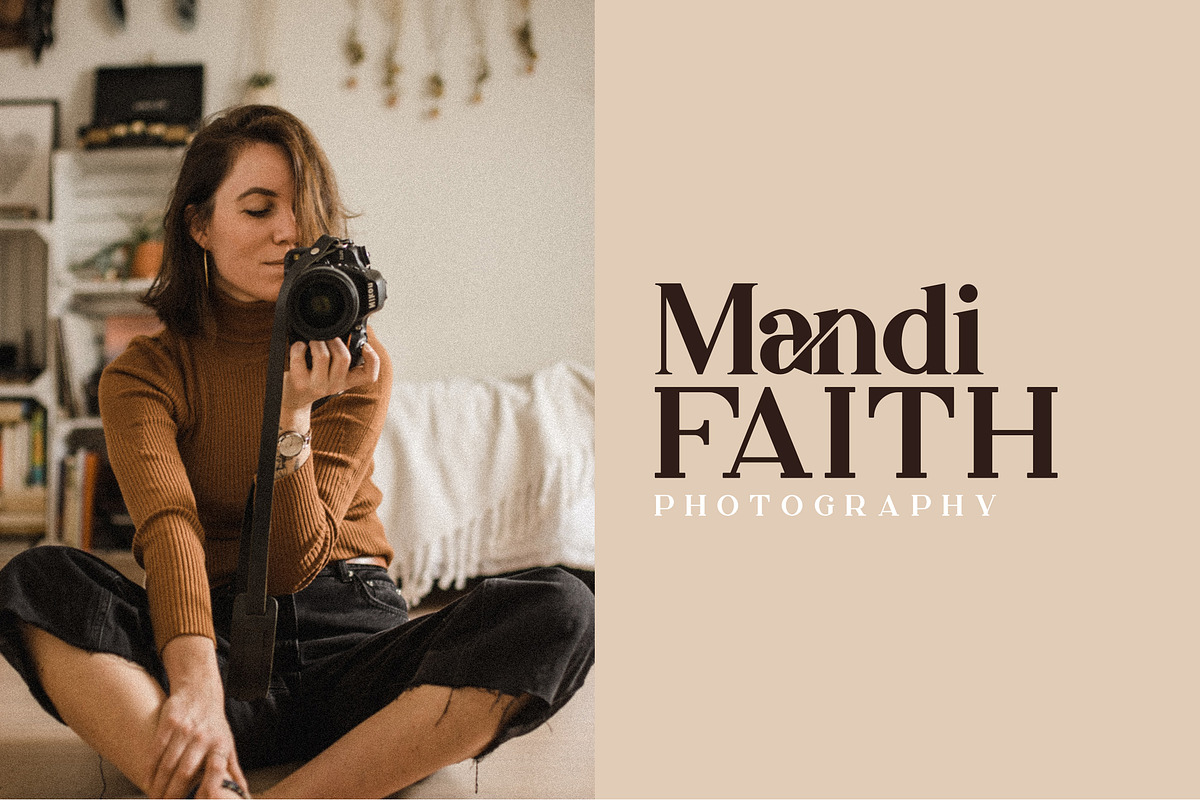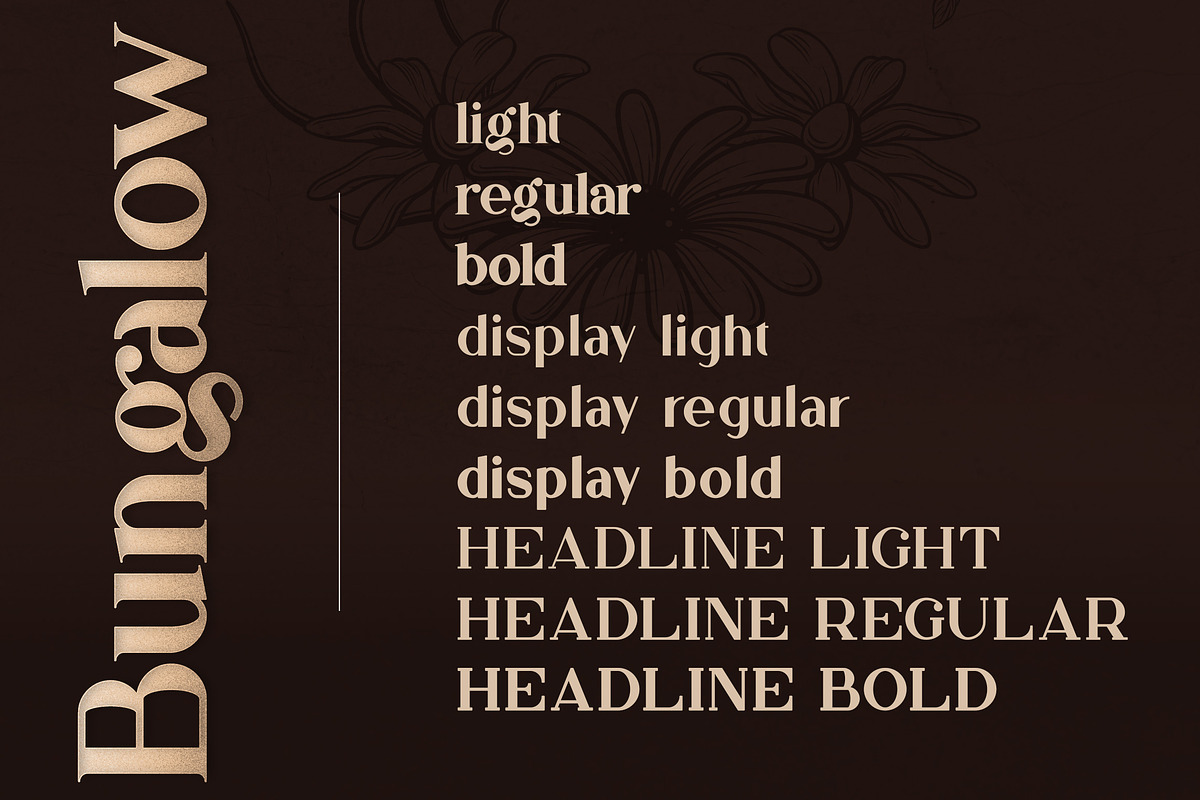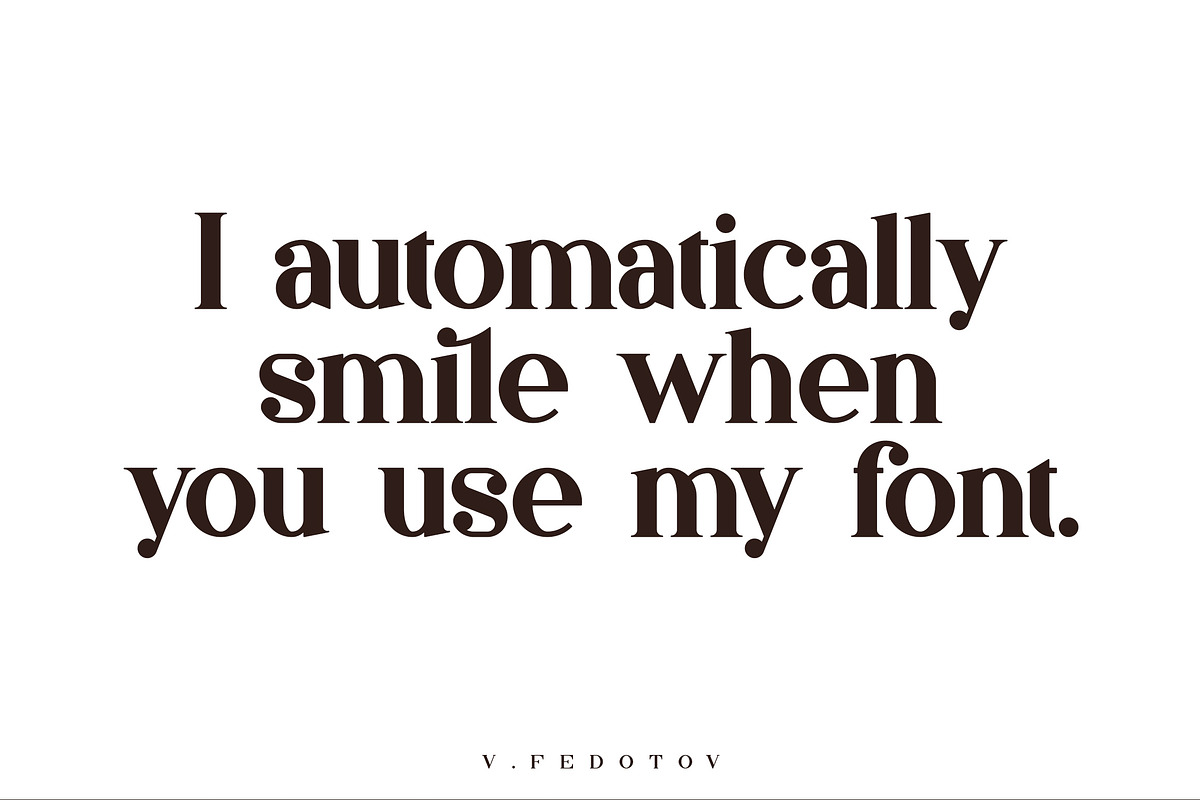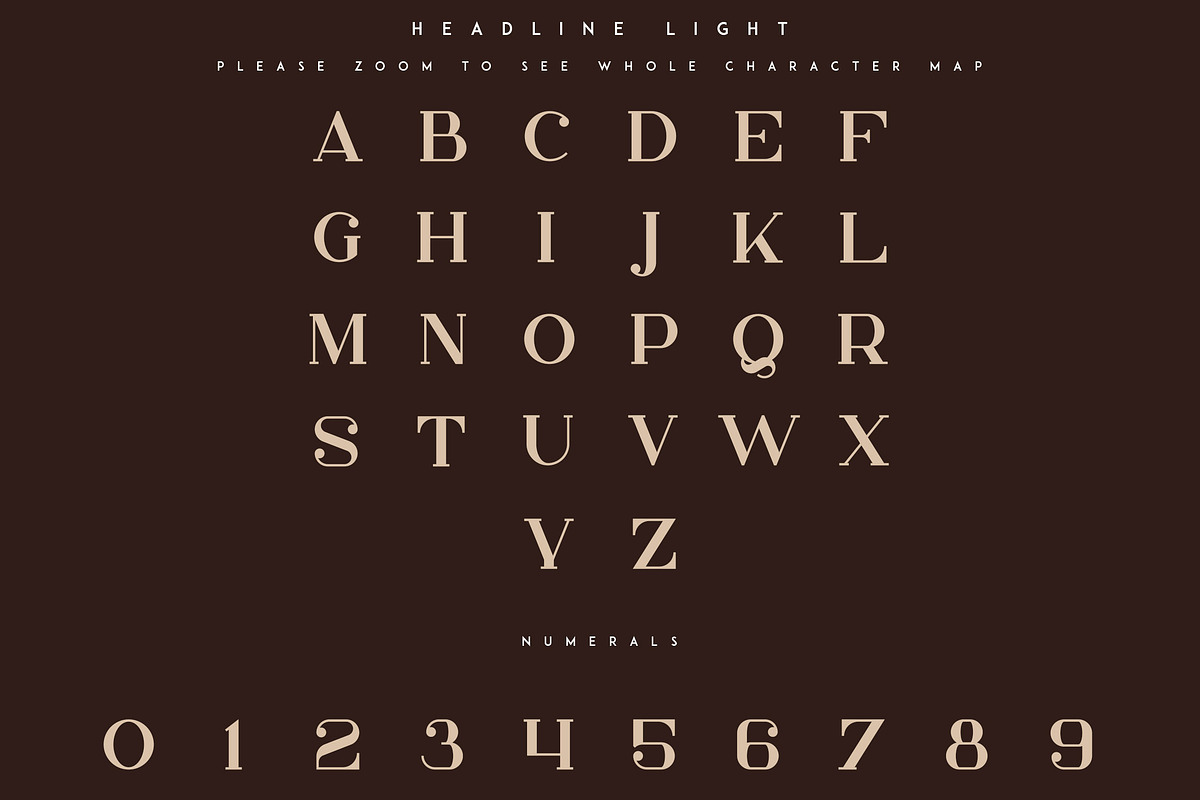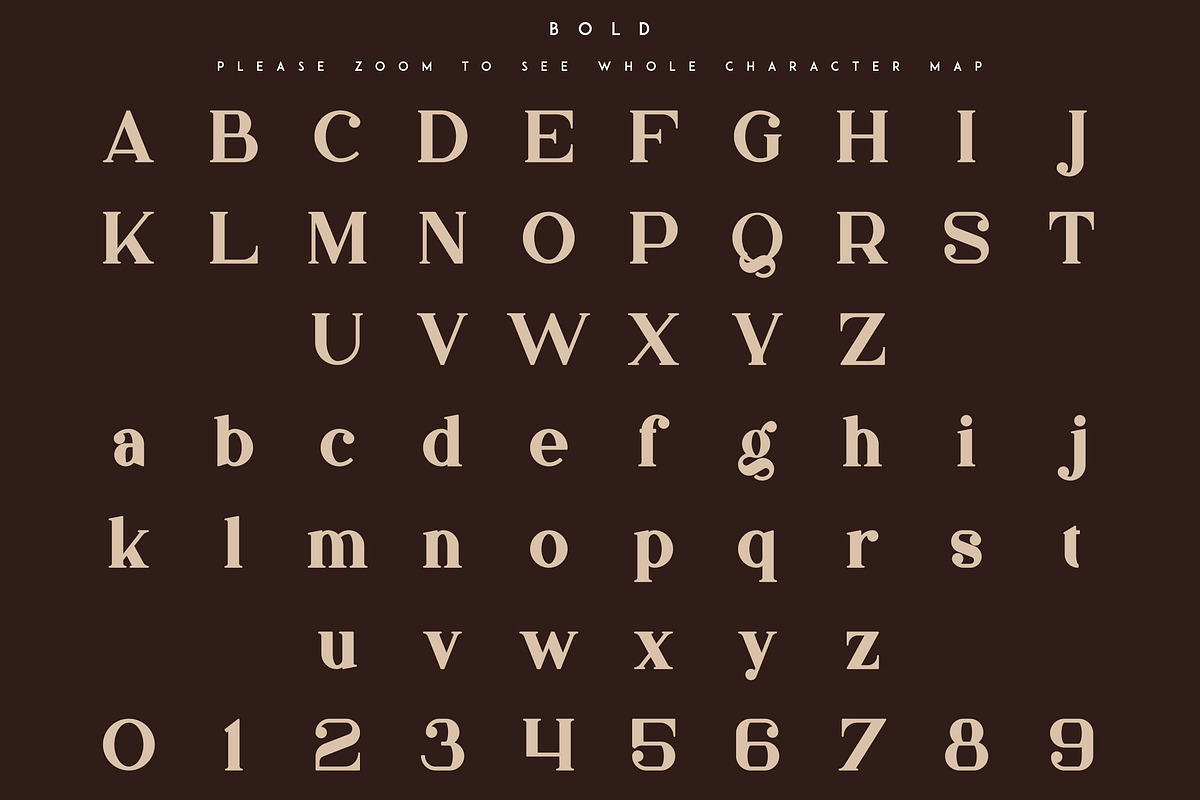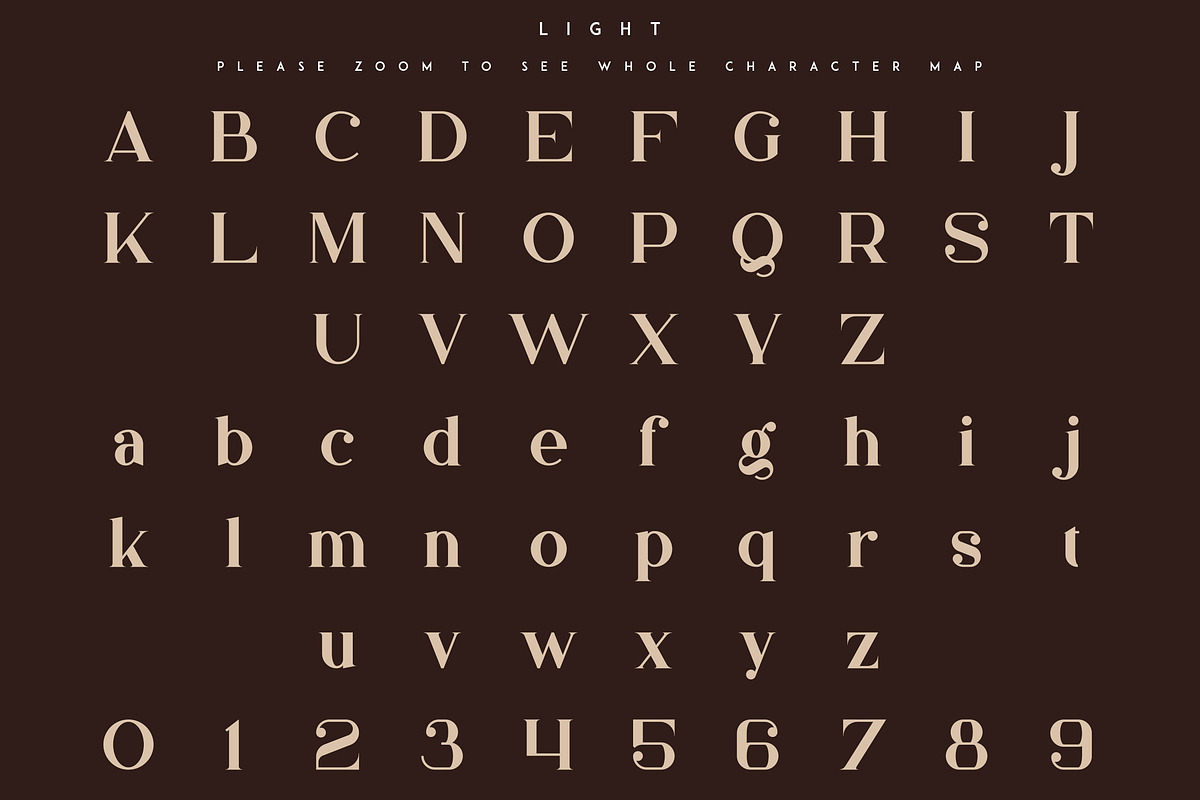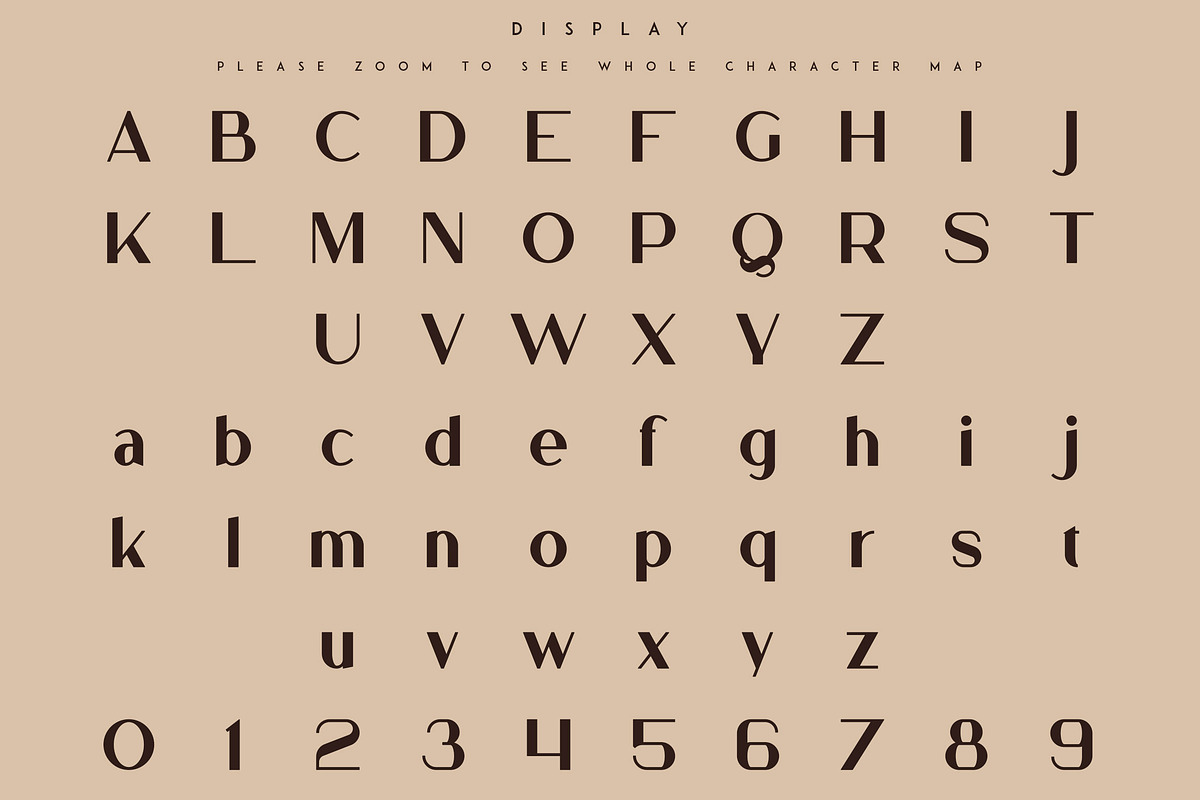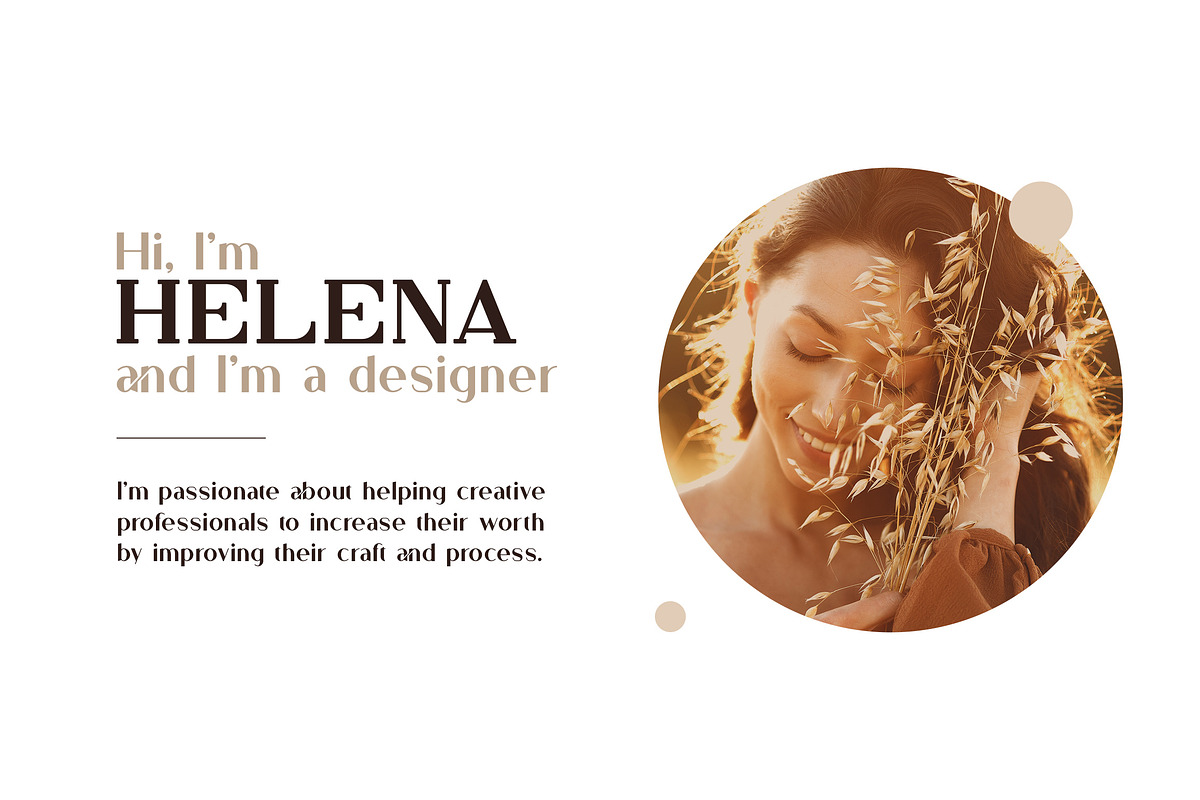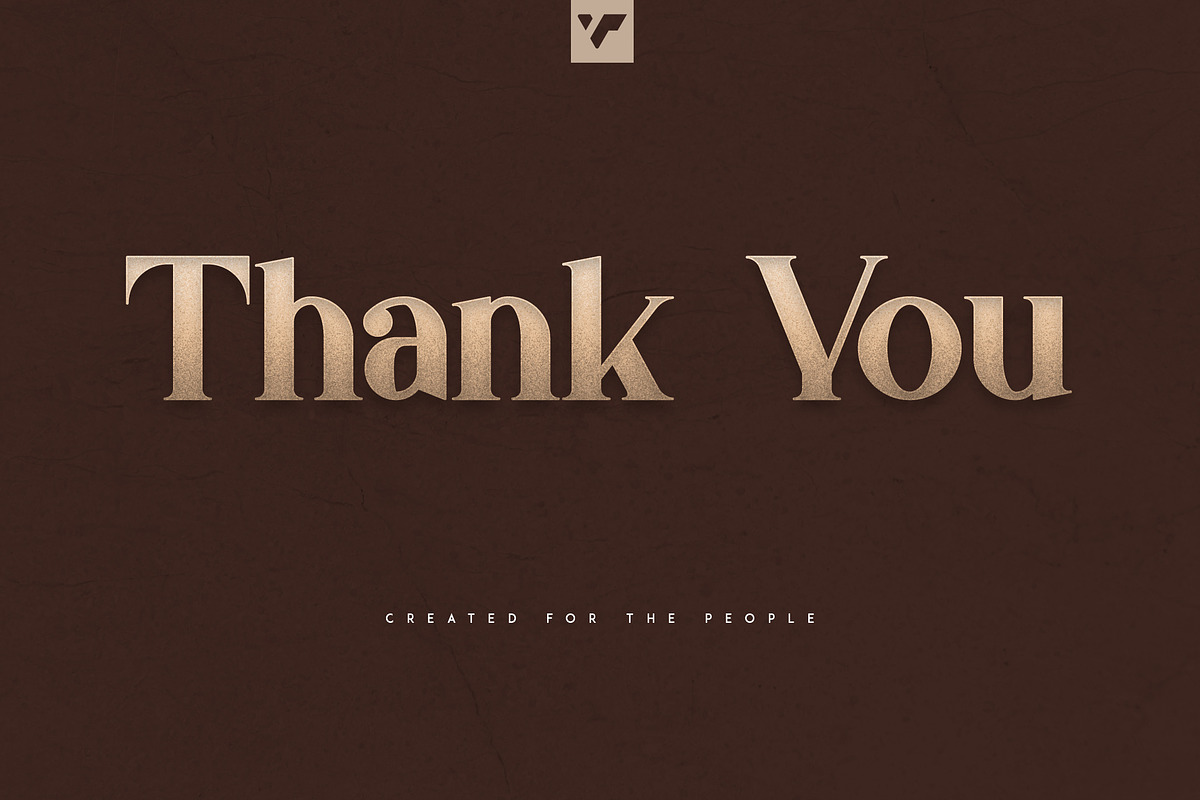
Bungalow Typeface - 9 fonts
Introducing Bungalow Typeface - 9 fonts
Bungalow is classic, vintage typeface with 3 serif, 3 display and 3 headline fonts to enchant your next project. They are loaded alternate glyphs, ligatures and multilingual support. Very versatile fonts that works great in large and small sizes.
Bungalow is perfect for branding projects, home-ware designs, product packaging, magazine headers - or simply as a stylish text overlay to any background image.
- Uppercase, lowercase, numeral, punctuation & Symbol
- Serif - Light, Regular, Bold
- Display - Light, Regular, Bold
- Headline - Light, Regular, Bold
- Alternate glyphs